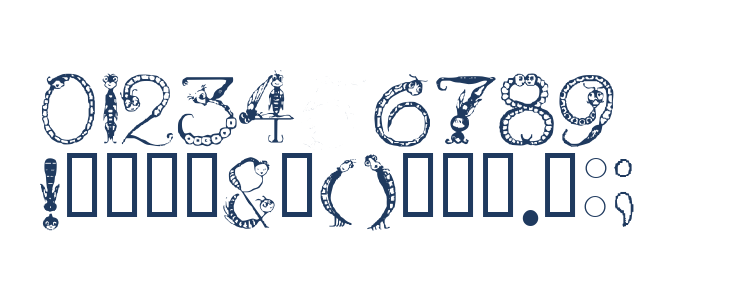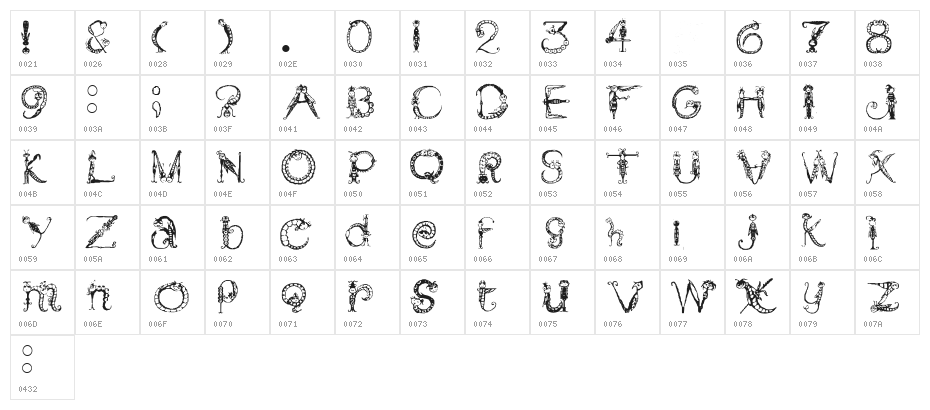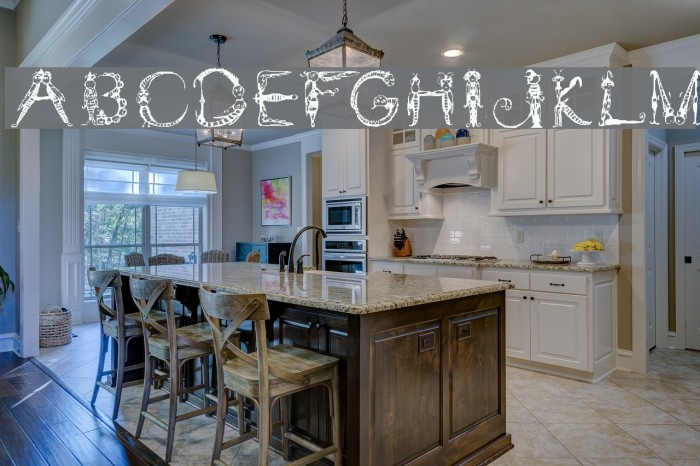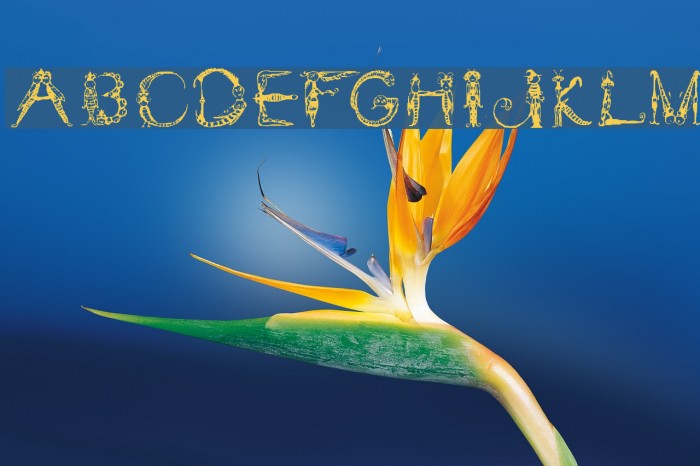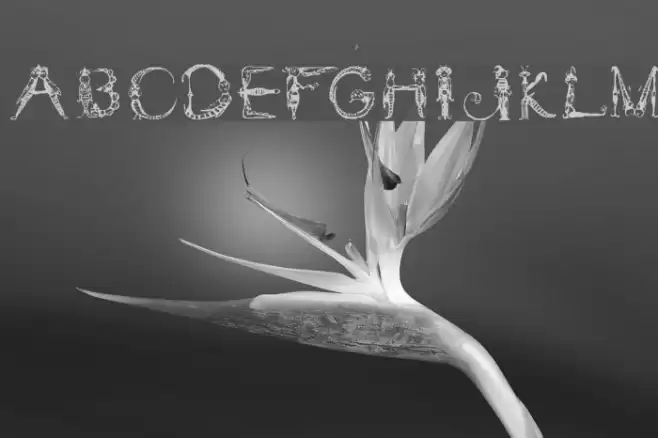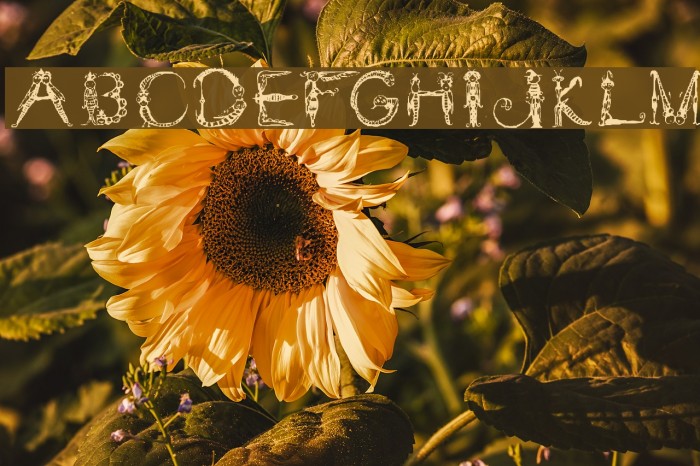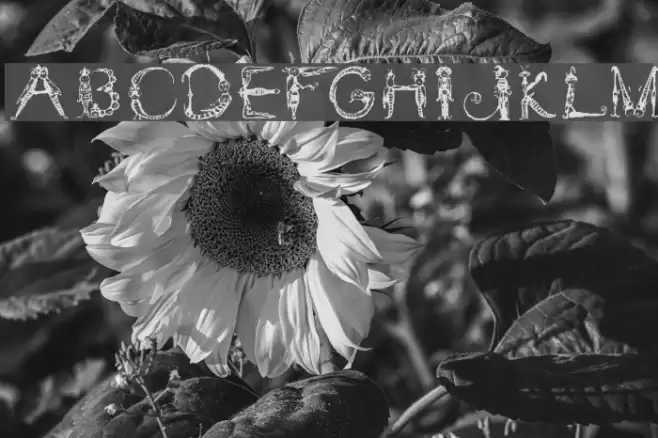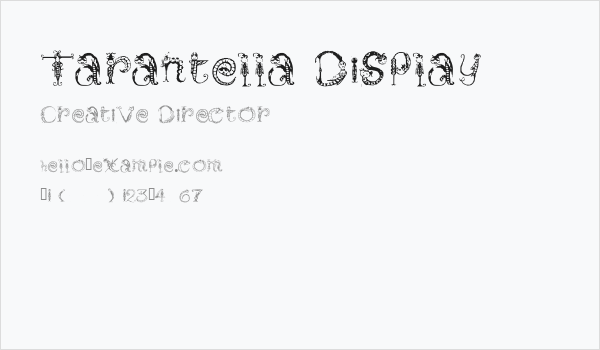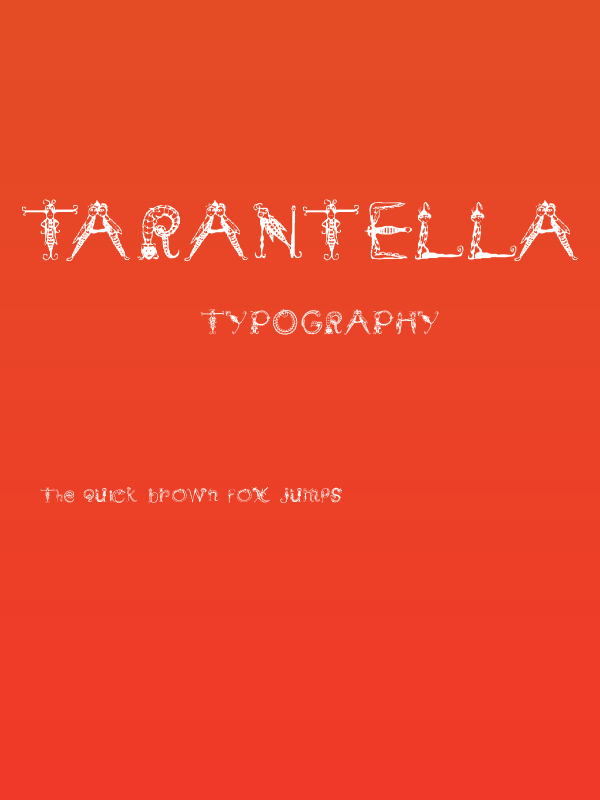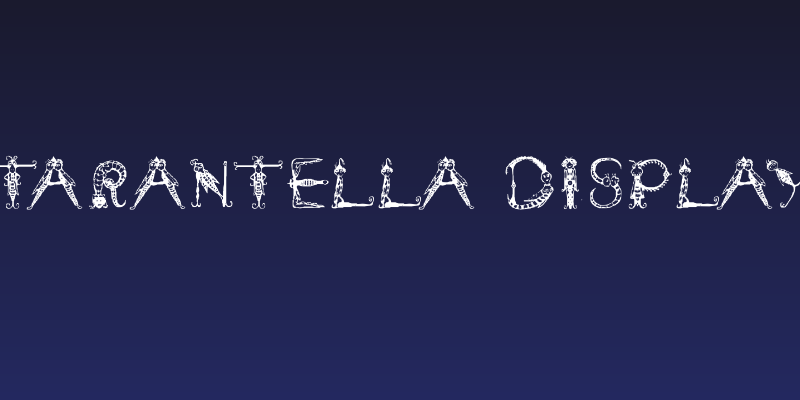
Tarantella Display Font
Tarantella Display Description
This font is a highly decorative and whimsical typeface, characterized by its intricate and playful design elements. Each character is adorned with unique embellishments, such as swirls, dots, and abstract shapes, giving it a lively and artistic appearance. The letters have a hand-drawn quality, with varying stroke widths and organic forms that create a sense of movement and creativity. This font is ideal for projects that require a touch of fantasy and imagination, as it stands out with its bold and expressive style. The overall look is both charming and eccentric, making it suitable for eye-catching designs.
| Proposed Projects | Perfect for children's book covers, fantasy-themed posters, creative invitations, and artistic branding. |